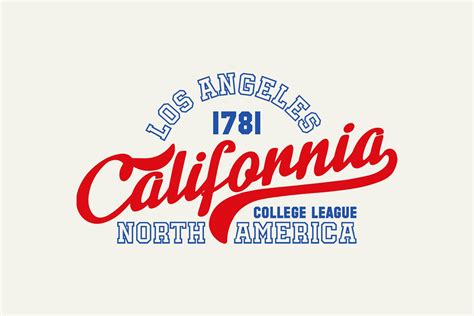
Create Custom Baseball Jersey Fonts Instantly
Hey baseball fans! Ever dreamt of designing your own baseball jersey, complete with a unique font that screams your team’s personality? Well, iibaseball jersey fonts generator is here to make that dream a reality! This guide will walk you through everything you need to know about creating custom fonts for your baseball jerseys, ensuring your team stands out from the crowd. We’ll explore the best fonts, how to use a generator, and tips for designing jerseys that are both stylish and functional. Get ready to step up your game and create jerseys that are truly your own!
Understanding the Importance of Baseball Jersey Fonts
Let’s be real, guys – the font on your baseball jersey is way more important than you might think. It’s a key element of your team’s identity, speaking volumes about your style, history, and overall vibe. Think about it: a classic, bold font can evoke a sense of tradition and power, while a modern, sleek font might signal a team that’s all about innovation and speed. Choosing the right font isn’t just about aesthetics; it’s about crafting a visual representation of your team’s brand. That’s why the iibaseball jersey fonts generator comes in handy because it helps you create the right font for your team. The right font can boost team morale and create a stronger sense of unity. If you want to make a statement on the field, you’ve got to make sure your font is on point. That’s because the jersey font is the first thing people notice. Your font needs to be legible from a distance, easy to read, and also in sync with your team’s overall design. A well-chosen font will not only look great but also make your team feel more confident and professional.
Here are some reasons why fonts matter:
• Brand Identity: The font is a core element of your team’s visual identity, just like your team colors or logo. It sets the tone and personality of your team. The iibaseball jersey fonts generator can help you achieve your desired look.
• Readability: Make sure your font is easy to read from a distance. The last thing you want is for your team name or player numbers to be a blur.
• Professionalism: A well-designed font gives a sense of professionalism and attention to detail. This makes your team look like they care about their presentation.
• Team Spirit: The right font can boost team morale and create a stronger sense of unity. It can also create a sense of belonging and pride.
Exploring the Best Baseball Jersey Font Styles
Alright, let’s dive into some awesome font styles perfect for your baseball jersey. The iibaseball jersey fonts generator lets you experiment with different styles. These are some of the popular choices:
• Classic Block Fonts: Think of those iconic jerseys from baseball’s golden age. These fonts are bold, simple, and timeless. They’re great for conveying strength and tradition.
• Examples: Varsity, Collegiate, and Impact . These fonts are easy to read and work well with bold colors.
• Script Fonts: Want to add a touch of elegance and flair? Script fonts are your go-to. They’re stylish and can add a personalized touch to your jerseys. However, make sure they’re readable.
• Examples: Brush Script, Script MT Bold . Use these sparingly, mainly for team names, as they can be tricky for numbers.
• Modern Athletic Fonts: These are sleek, and often feature a slight slant or unique design elements. Great for teams aiming for a contemporary look.
• Examples: Gotham, Montserrat . These fonts often look great when paired with modern jersey designs.
• Rounded Fonts: These fonts offer a softer look, making them great for youth teams or a more friendly vibe. They often look more approachable.
• Examples: Helvetica Neue, Arial Rounded . These fonts are versatile and easy to read.
When choosing a font, consider your team’s colors, logo, and overall style. Ensure the font complements your design, not clashes with it. Remember, the iibaseball jersey fonts generator lets you try out different options to find the perfect fit. Make sure to consider the readability of the fonts on the jersey. The font must be clear when seen from a distance.
Using an iibaseball Jersey Fonts Generator: A Step-by-Step Guide
Alright, let’s get down to the nitty-gritty and explore how to use a baseball jersey font generator. The iibaseball jersey fonts generator is a cool online tool that makes designing fonts a breeze. Here’s a simple guide to get you started. Once you’re done, you’ll be able to create a unique font for your team.
1. Find a Reliable Generator: Search for a reliable online generator. Some popular options offer a wide range of fonts and customization options. Make sure the generator is user-friendly and offers the features you need. This could be a website or an app.
2. Choose Your Font: Browse through the available font options. Look for fonts that match your team’s style and brand. You can preview how the font looks with different text and colors.
3. Customize Your Font: This is where the fun begins! Most generators allow you to customize your font in several ways:
• Size: Adjust the font size to fit your jersey design.
• Color: Pick the colors for the font to match your team’s colors.
• Style: Bold, italicize, or outline the font to give it a unique look.
• Spacing: Adjust the spacing between letters and lines to ensure readability and balance.
4. Preview Your Design: Use the preview feature to see how your font will look on a jersey. Make any adjustments as needed. This ensures you’re happy with the final result.
Conclusion: Designing the Perfect Baseball Jersey with the Right Font
Alright, guys, you’ve got the knowledge to create fantastic baseball jerseys! The iibaseball jersey fonts generator is your secret weapon. By understanding the importance of font, exploring different styles, and using the right tools, you can create jerseys that reflect your team’s identity. From choosing the perfect font to customizing your design, the possibilities are endless. So, go out there, get creative, and design jerseys that will make your team look and feel like champions. Have fun with it, and always remember to make it your own! Happy designing, and good luck out there on the field!